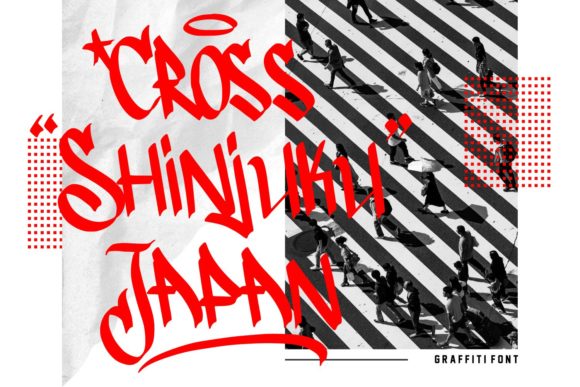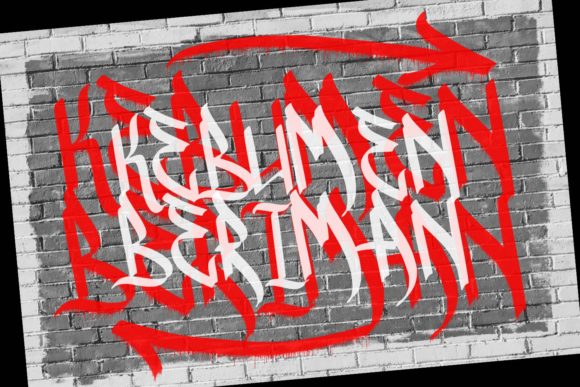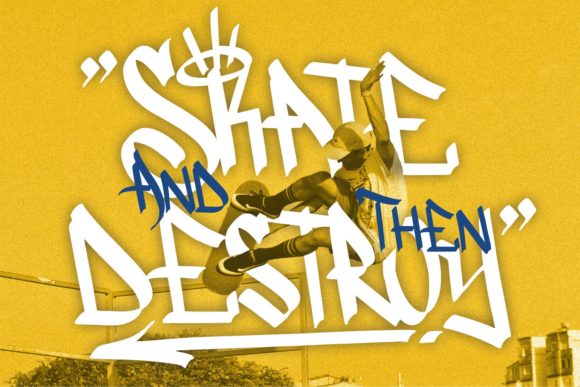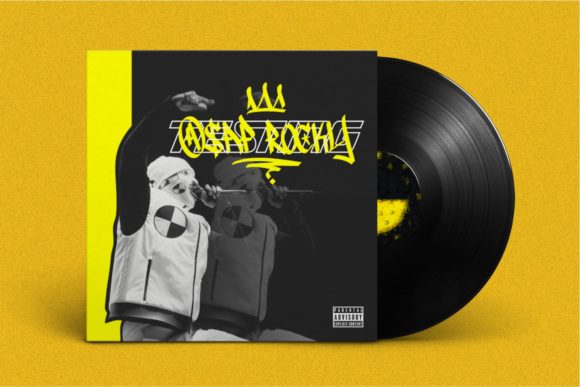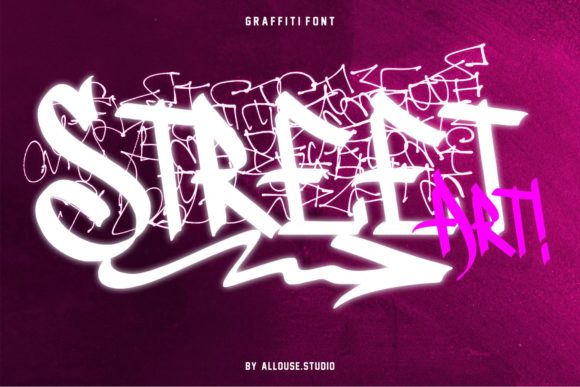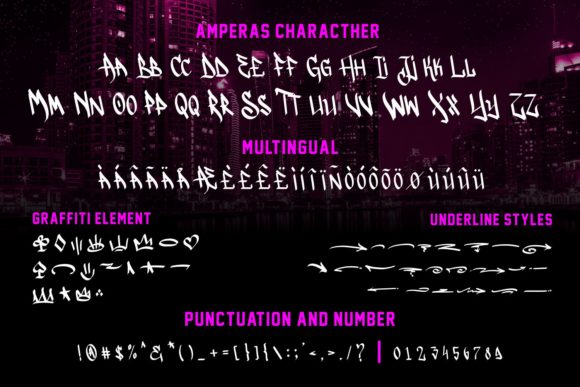
Introducing Amperas Font: The Bold and Dramatic Graffiti Style Display Font
Are you looking for a font that can add a touch of edginess and creativity to your designs? Look no further than Amperas Font, a bold and dramatic display font featuring a graffiti style. This versatile font is perfect for a wide range of projects, from product packaging and branding to magazine articles, social media posts, and wedding designs.
What is Amperas Font?
Amperas Font is a unique and eye-catching display font that is sure to make your designs stand out. Its graffiti style gives it a bold and edgy look that is perfect for designers and crafters who want to add a touch of urban flair to their work. The font features bold lines, vibrant colors, and a dynamic feel that is sure to grab attention.
Key Features of Amperas Font
- Bold and Dramatic: Amperas Font is a bold and dramatic font that is perfect for making a statement.
- Graffiti Style: The font features a graffiti style that gives it an edgy and urban feel.
- Versatile: Amperas Font can be used for a wide range of projects, from product packaging and branding to magazine articles, social media posts, and wedding designs.
- Easy to Read: Despite its bold and dramatic style, Amperas Font is easy to read and understand.
Uses of Amperas Font
Amperas Font is a versatile font that can be used for a wide range of projects, including:
- Product Packaging: Add a touch of edginess to your product packaging with Amperas Font.
- Branding Projects: Use Amperas Font to create bold and eye-catching branding projects that will help your business stand out.
- Magazine Articles: Add a touch of urban flair to your magazine articles with Amperas Font.
- Social Media Posts: Use Amperas Font to create eye-catching social media posts that will grab attention.
- Wedding Designs: Add a touch of edginess to your wedding designs with Amperas Font.
Why Choose Amperas Font?
There are many reasons why you should choose Amperas Font for your next project. Here are a few:
- Unique and Eye-Catching: Amperas Font is a unique and eye-catching font that is sure to make your designs stand out.
- Versatile: Amperas Font can be used for a wide range of projects, making it a great addition to any designer’s toolkit.
- High-Quality: Amperas Font is a high-quality font that is designed to produce crisp and clear results.
Tips for Using Amperas Font
Here are a few tips for using Amperas Font:
- Use it Sparingly: Amperas Font is a bold and dramatic font, so it’s best to use it sparingly to avoid overwhelming your design.
- Pair it with Other Fonts: Amperas Font can be paired with other fonts to create a unique and eye-catching design.
- Experiment with Colors: Amperas Font looks great in a variety of colors, so don’t be afraid to experiment and find the perfect color for your design.
Amperas Font is a bold and dramatic display font featuring a graffiti style that is perfect for designers and crafters who want to add a touch of edginess and creativity to their designs. Its versatility, ease of use, and high-quality design make it a great addition to any designer’s toolkit. Whether you’re working on a product packaging project, a branding project, or a wedding design, Amperas Font is sure to make your designs stand out.